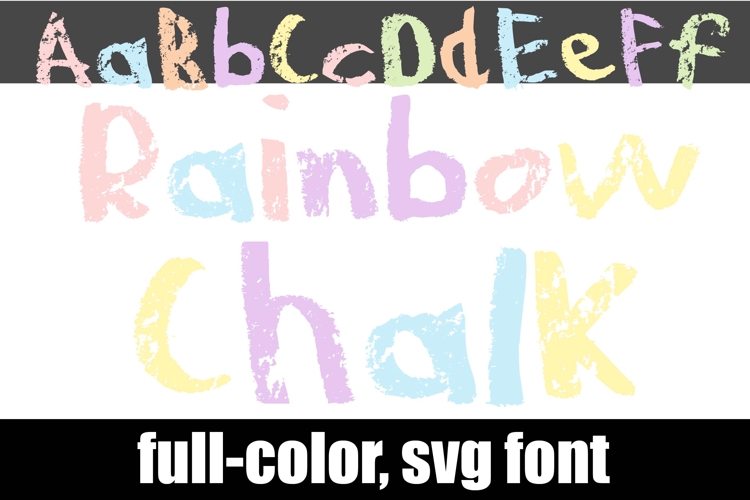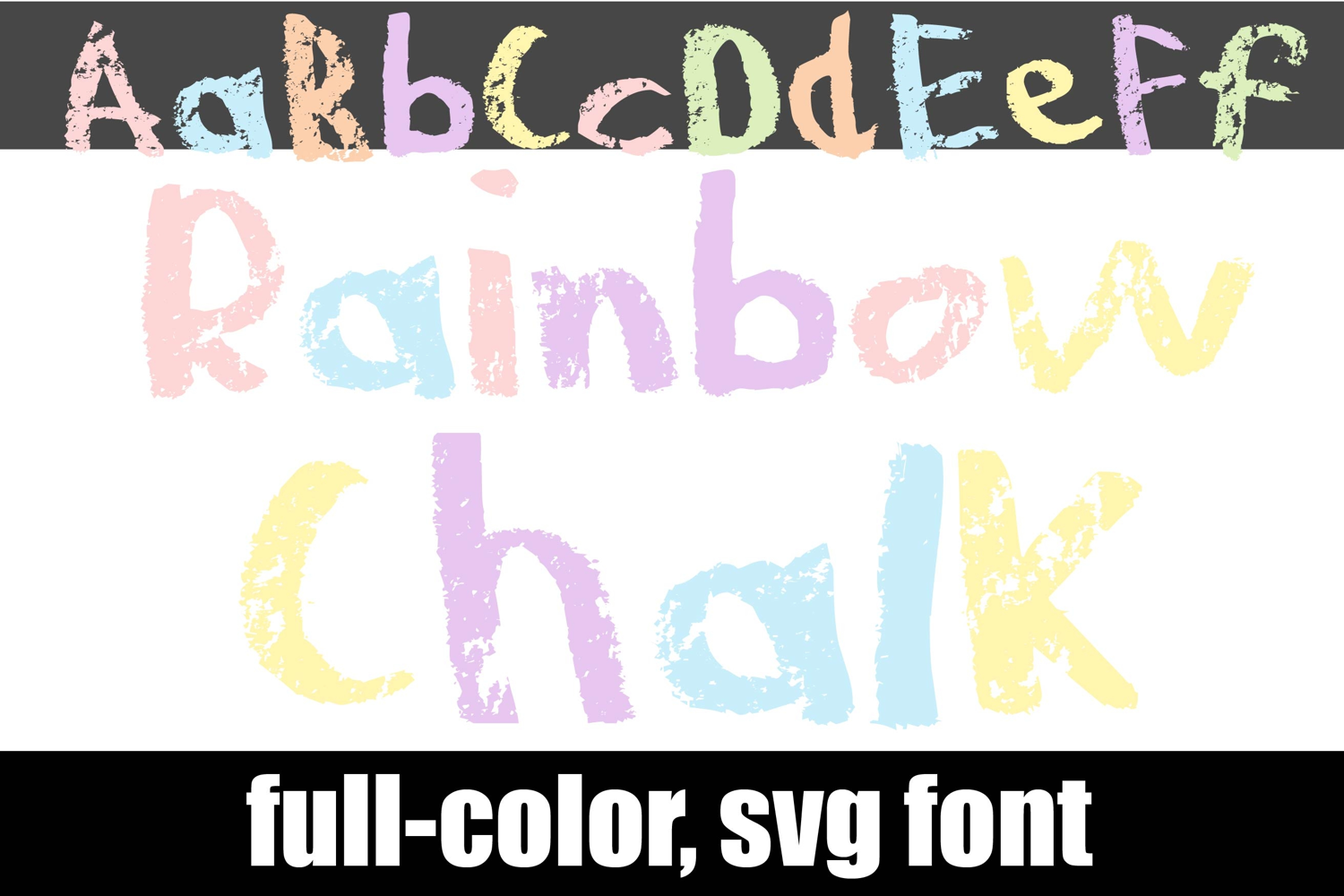
Rainbow Chalk Pastel Color Font
This full-color, hand-printed font looks like it was written in pastel chalk. There is an alt case of additional colors of each letter that you can access through your system's character map.